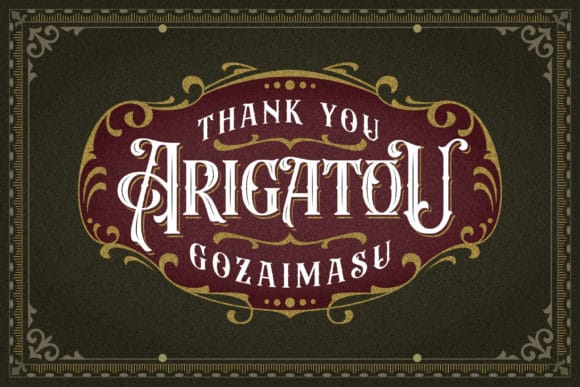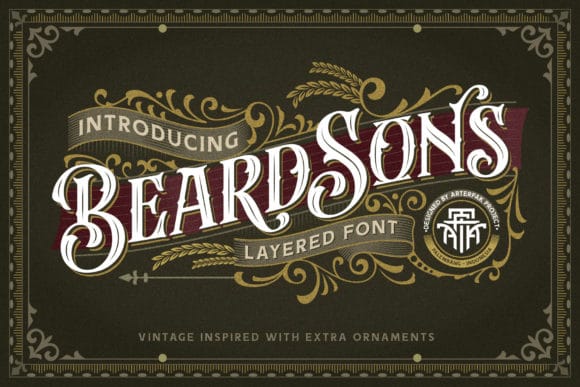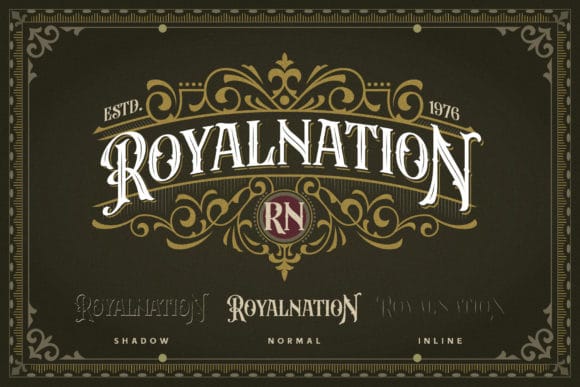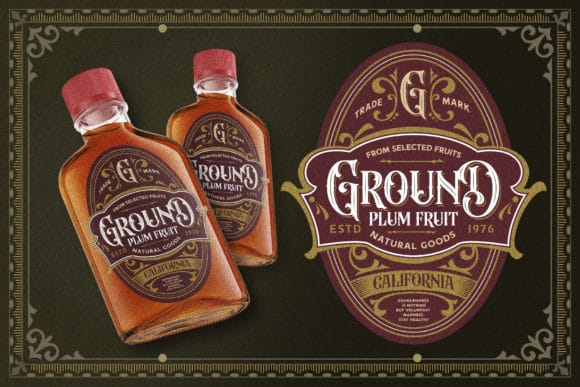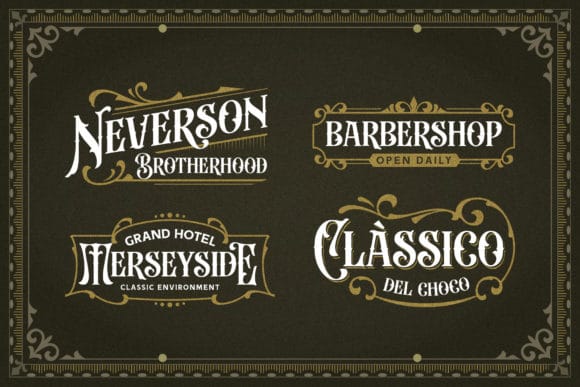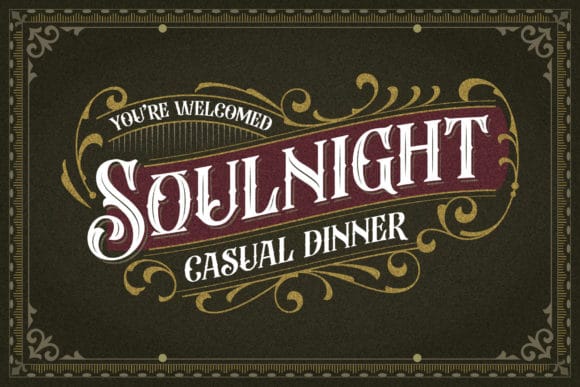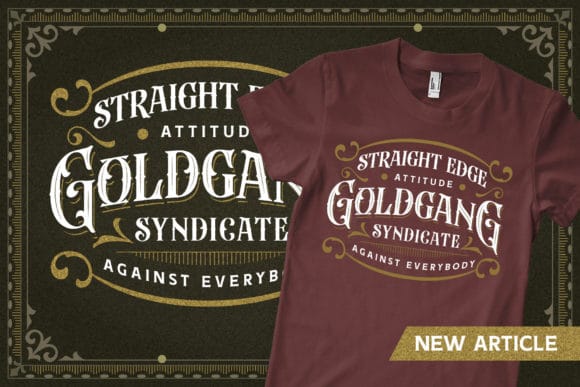
Beardsons – Vintage Blackletter Font
Beardsons is a bold blackletter font with a vintage edge. Perfect for logos, posters, apparel, and creative projects.
Beardsons is a unique blackletter font that blends traditional gothic charm with a modern vintage touch. Its bold strokes and classic style make it perfect for branding, apparel design, signage, album covers, posters, and more. Whether you’re working on retro-inspired graphics or standout modern designs, Beardsons will give your projects an authentic and eye-catching look.
Features:
Strong blackletter style
Vintage gothic aesthetic
Ideal for logos, posters, apparel, and packaging
Let Beardsons inspire your next creation with its timeless character and bold presence.